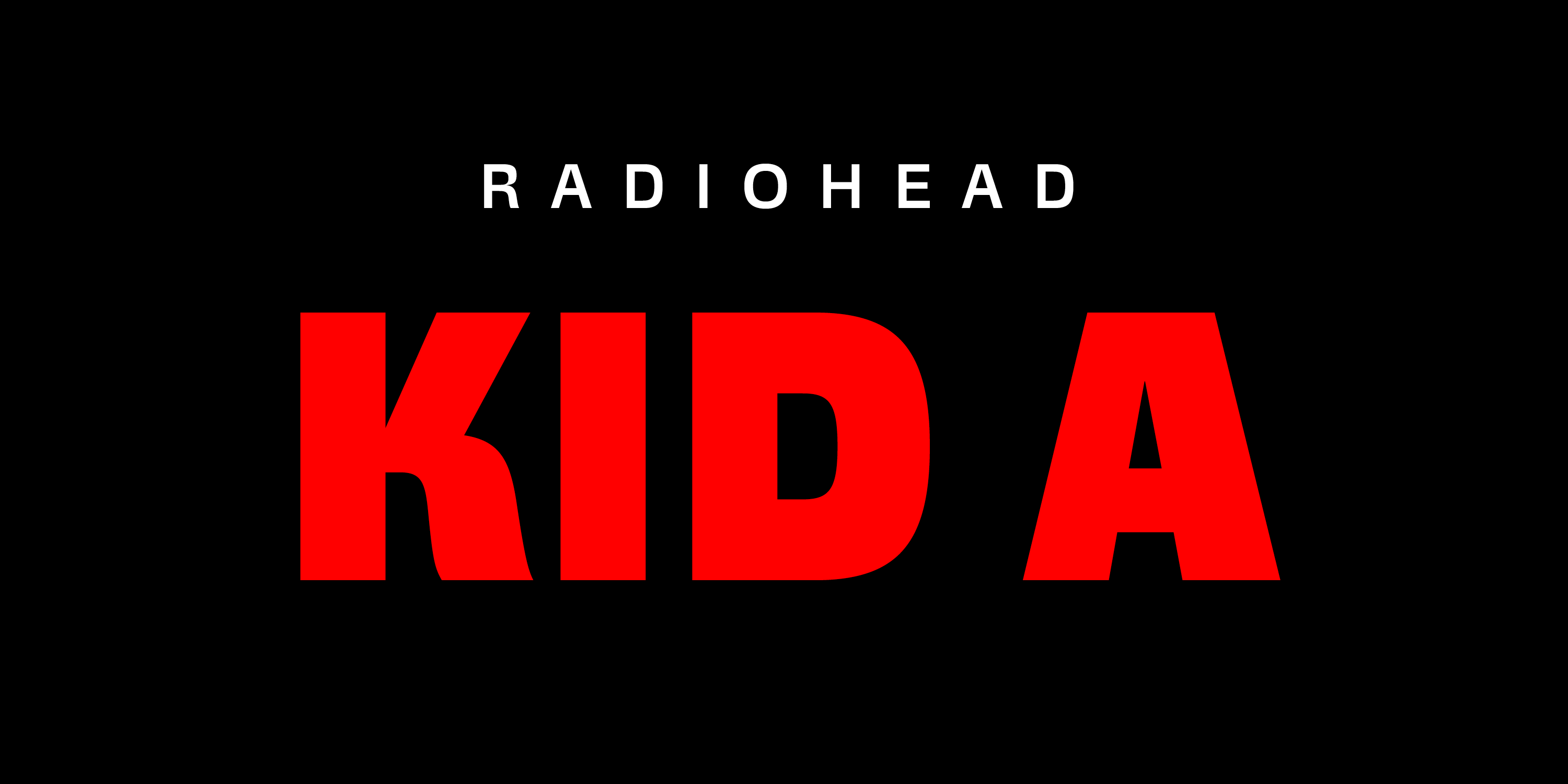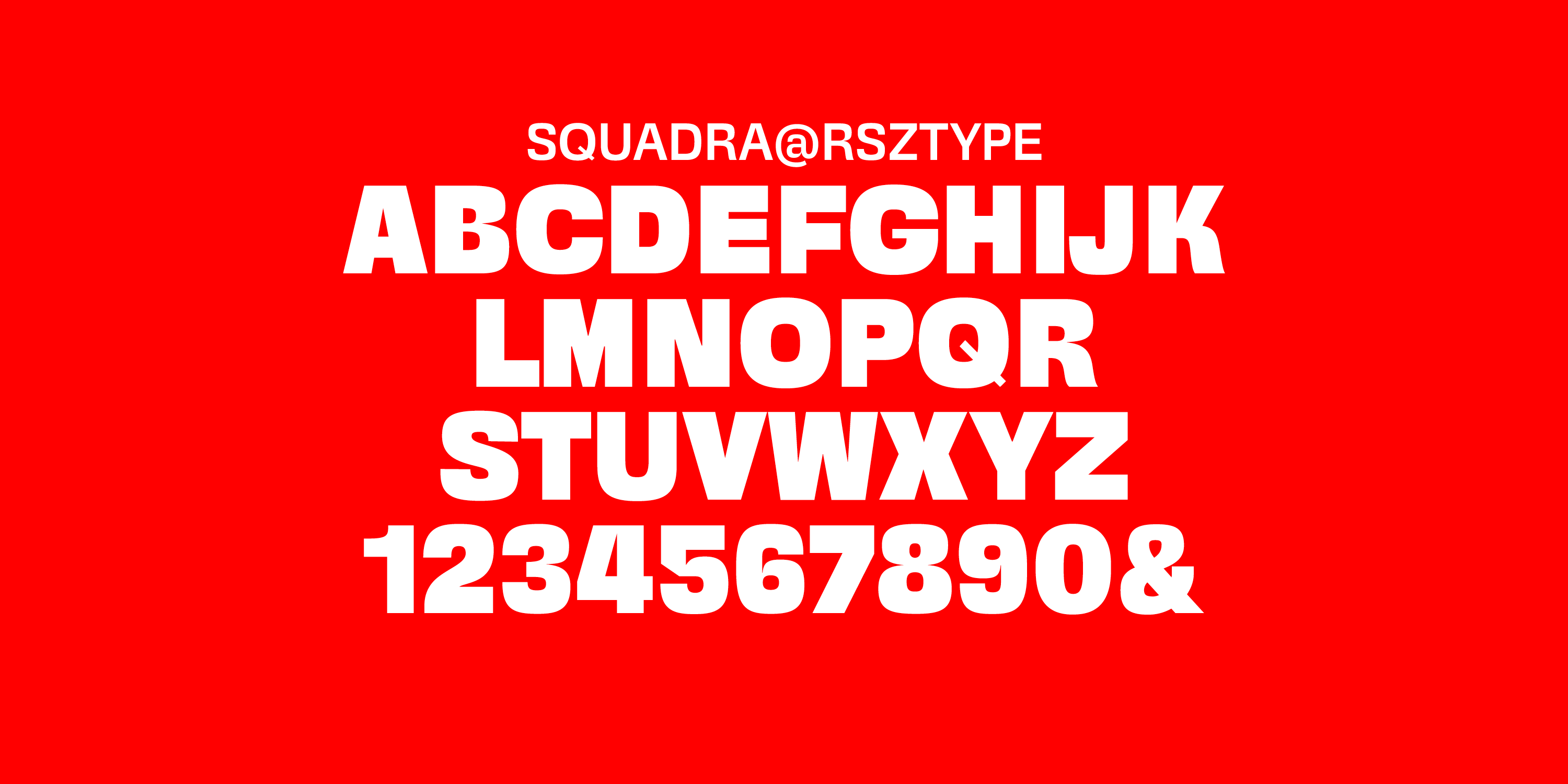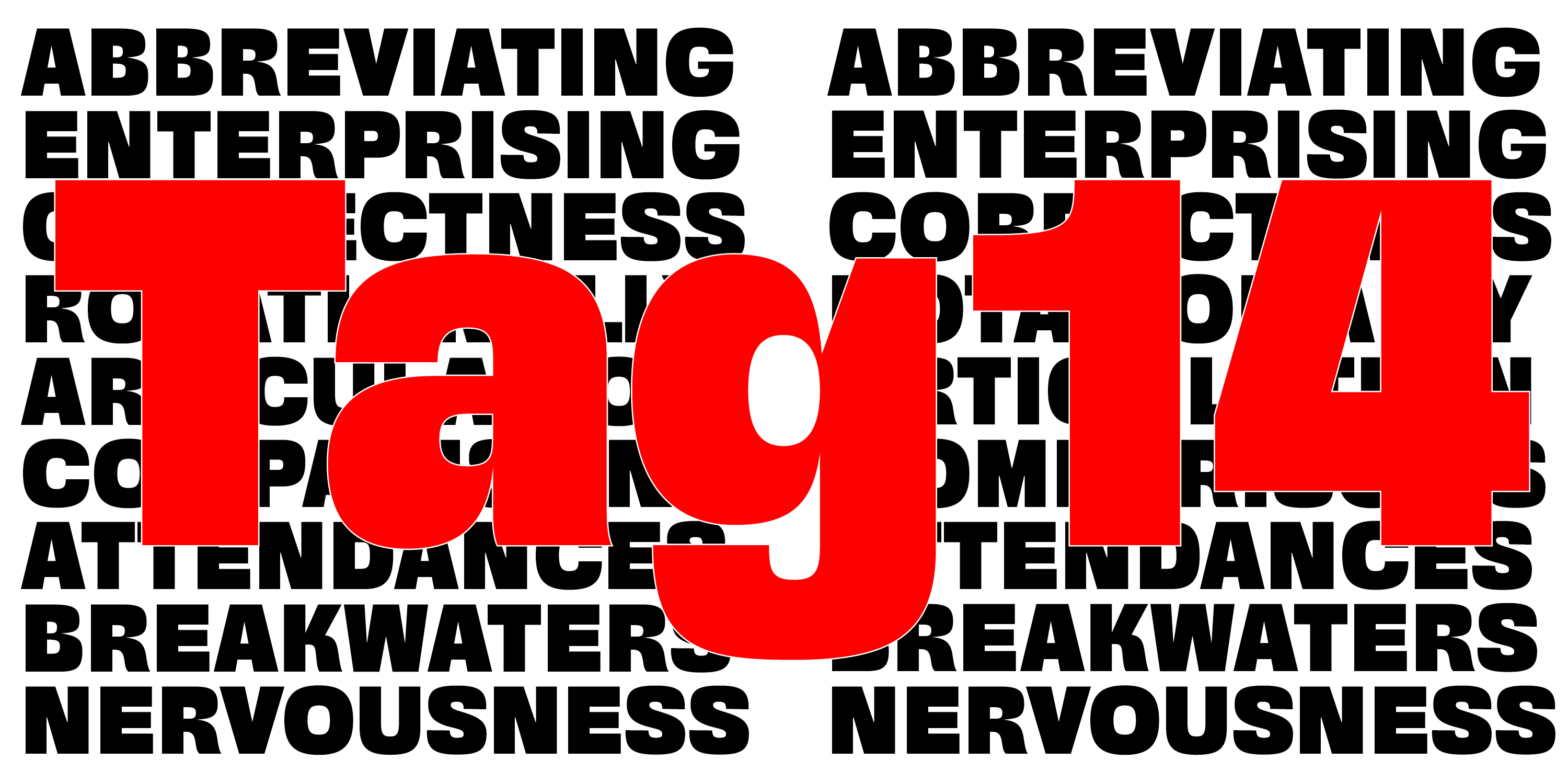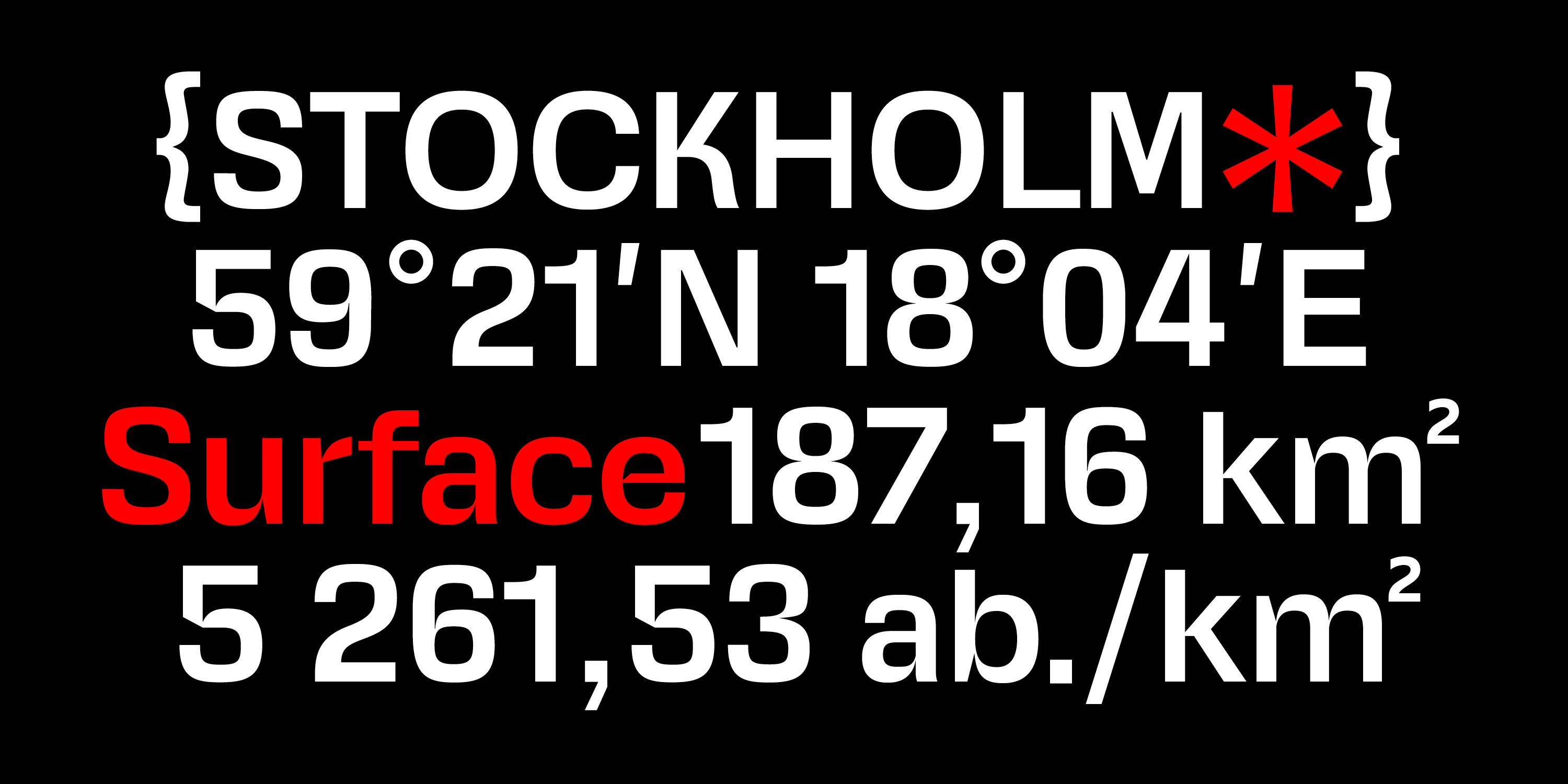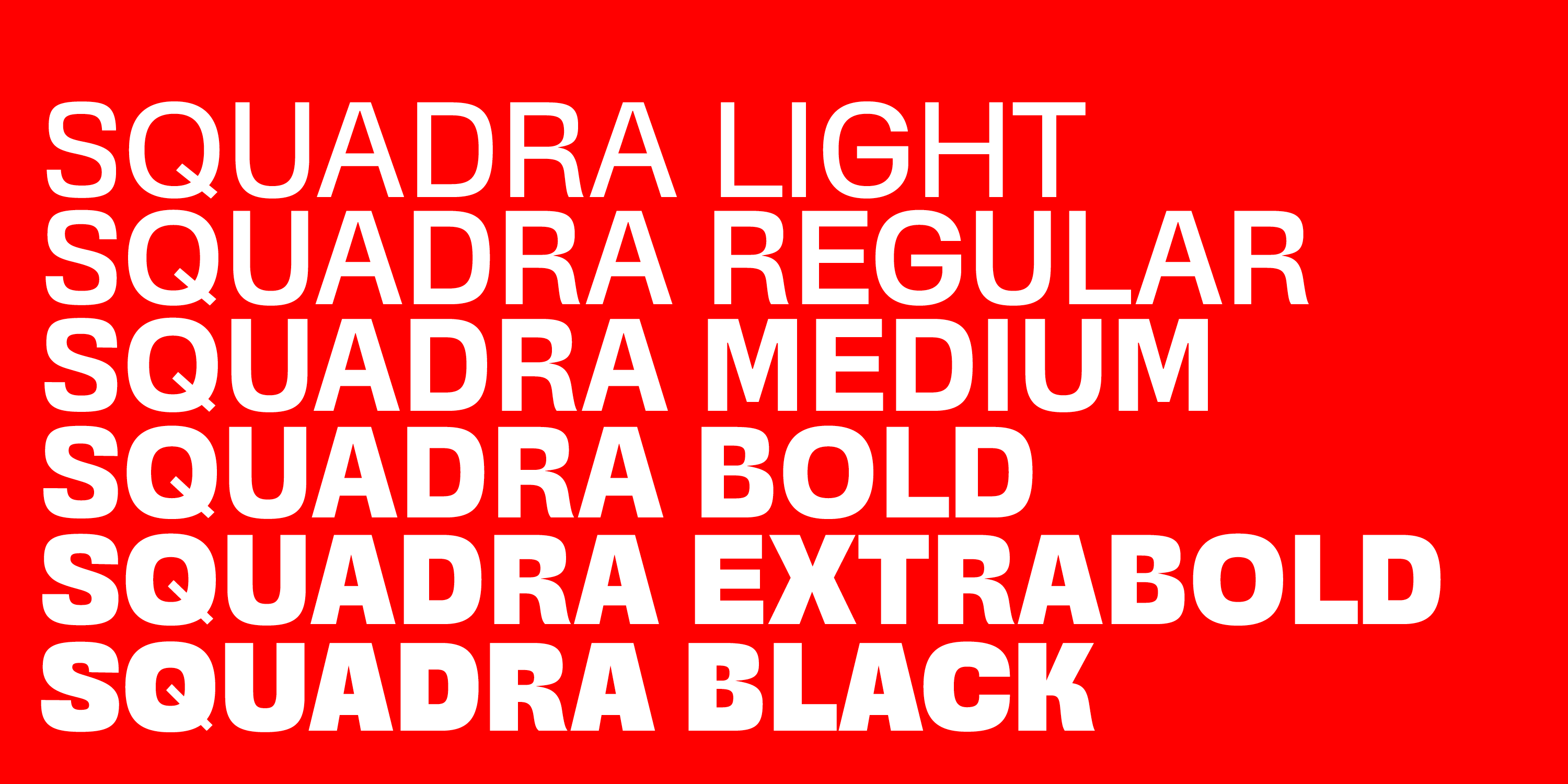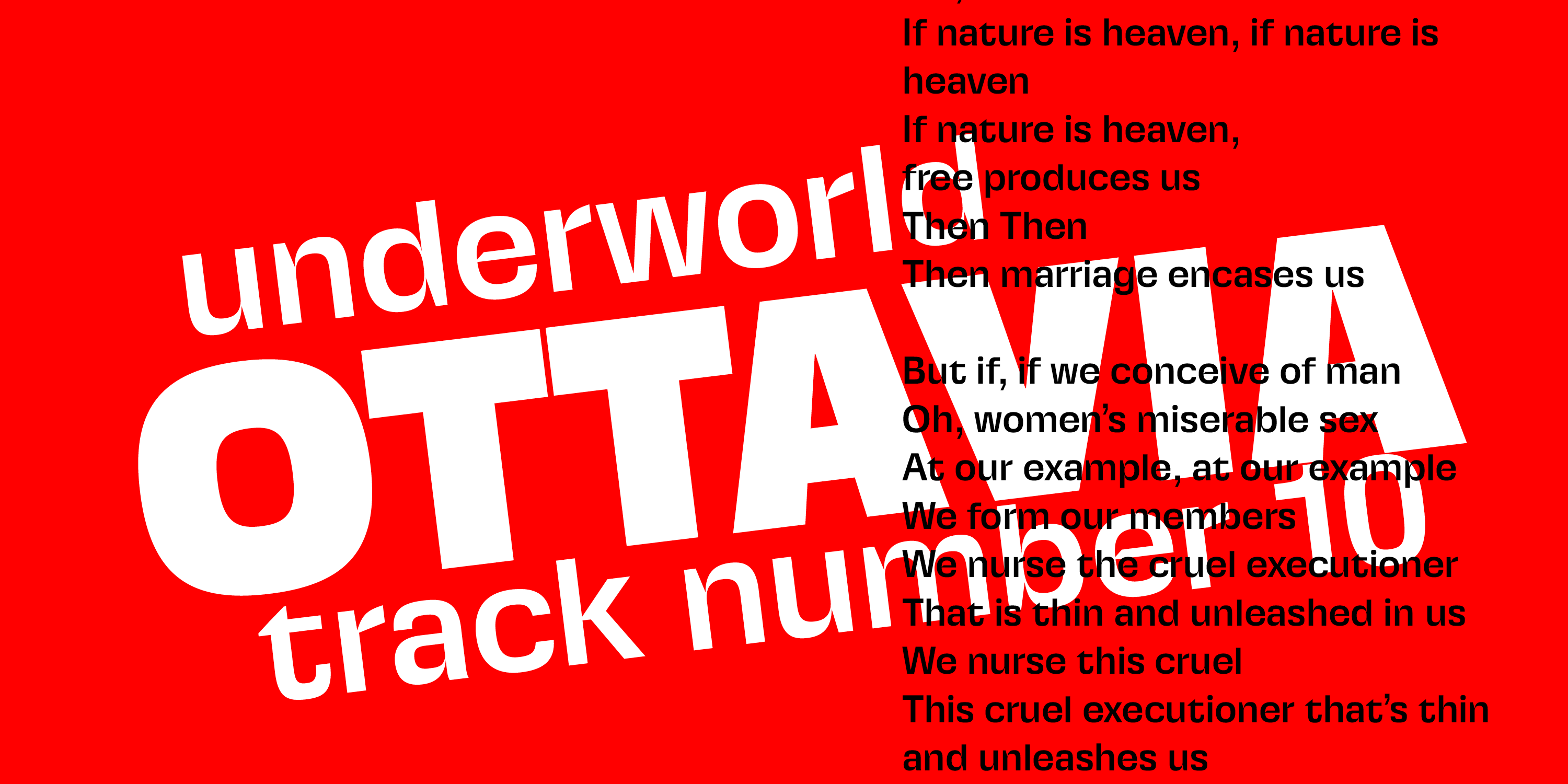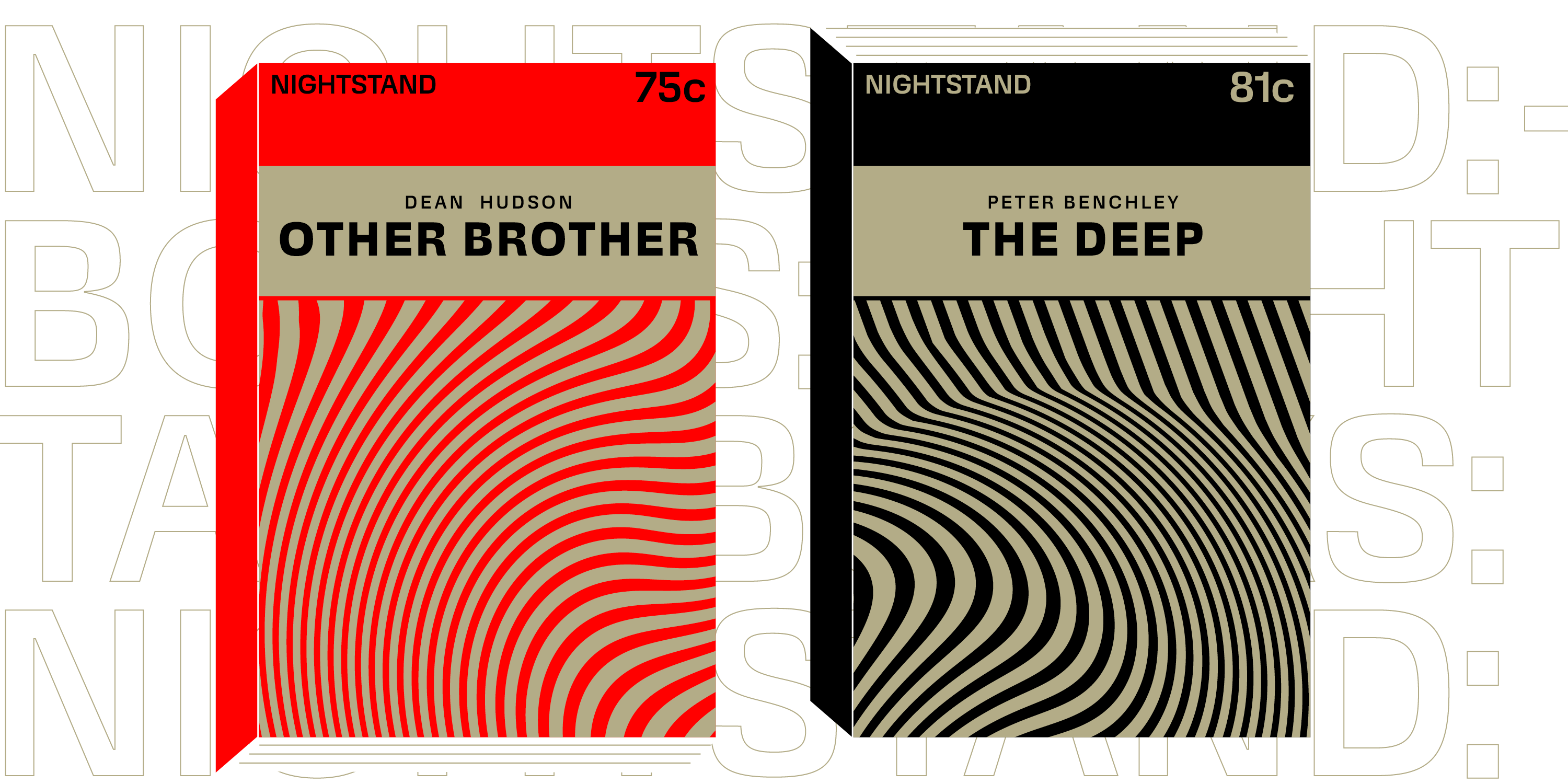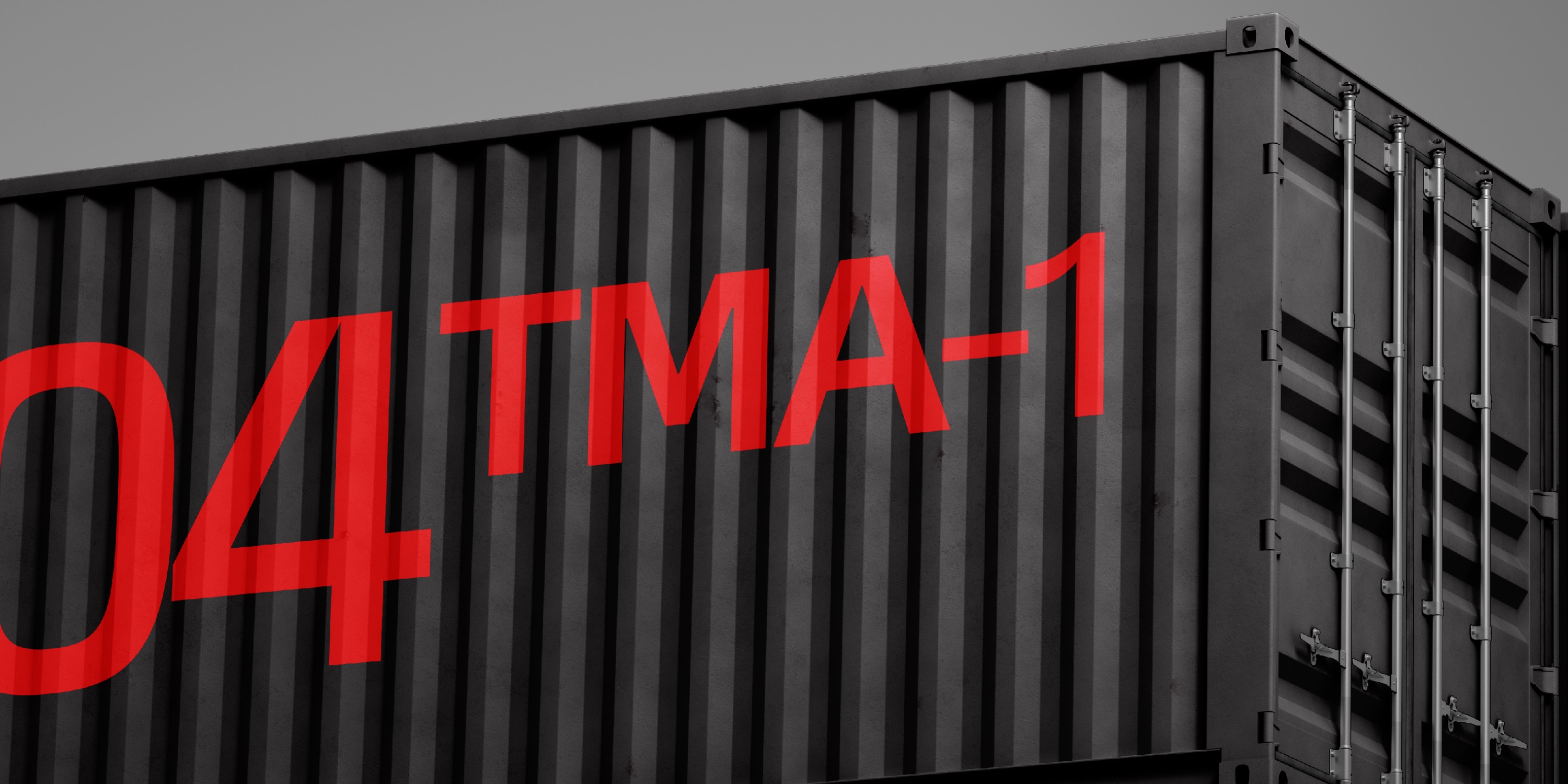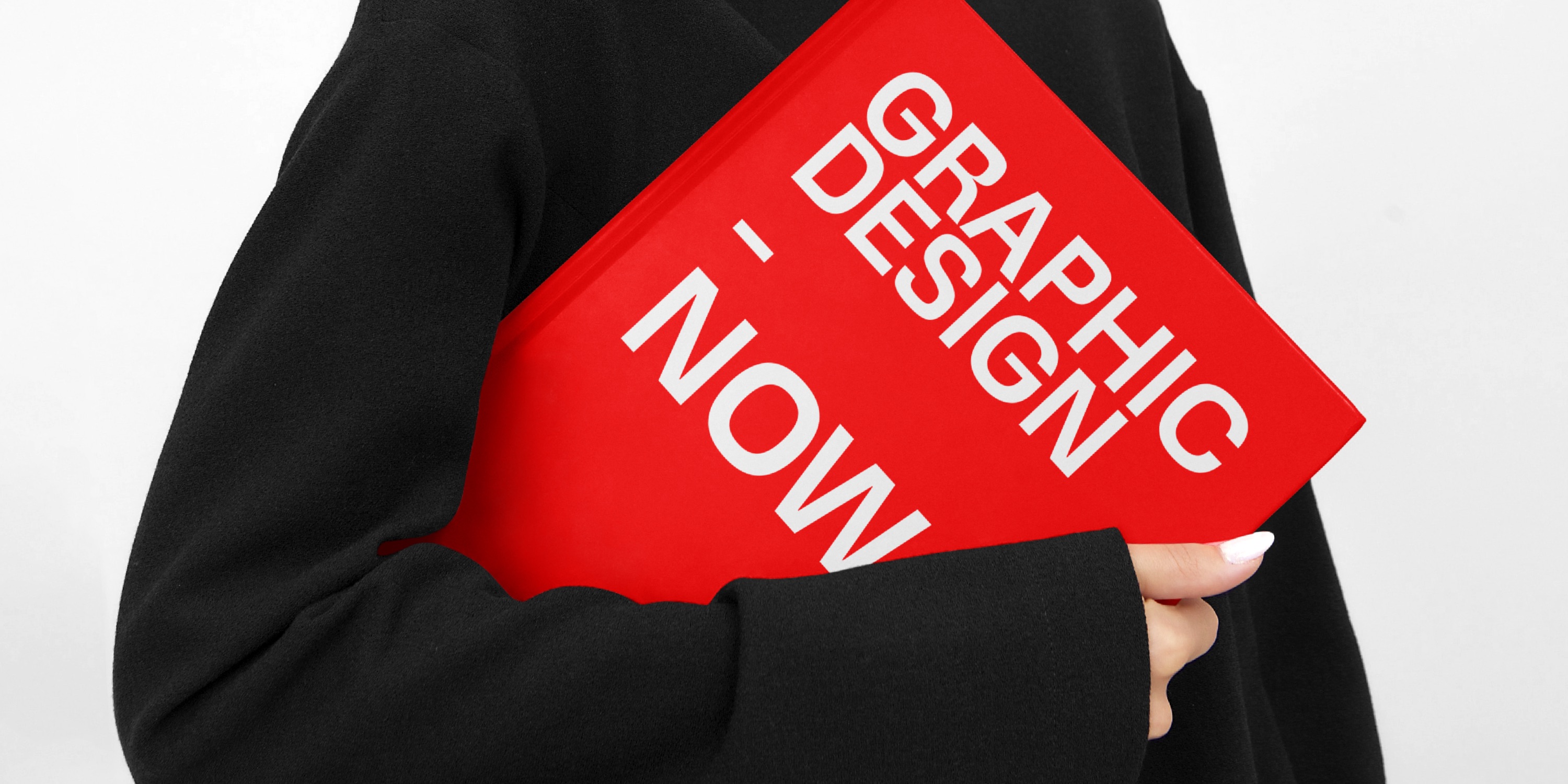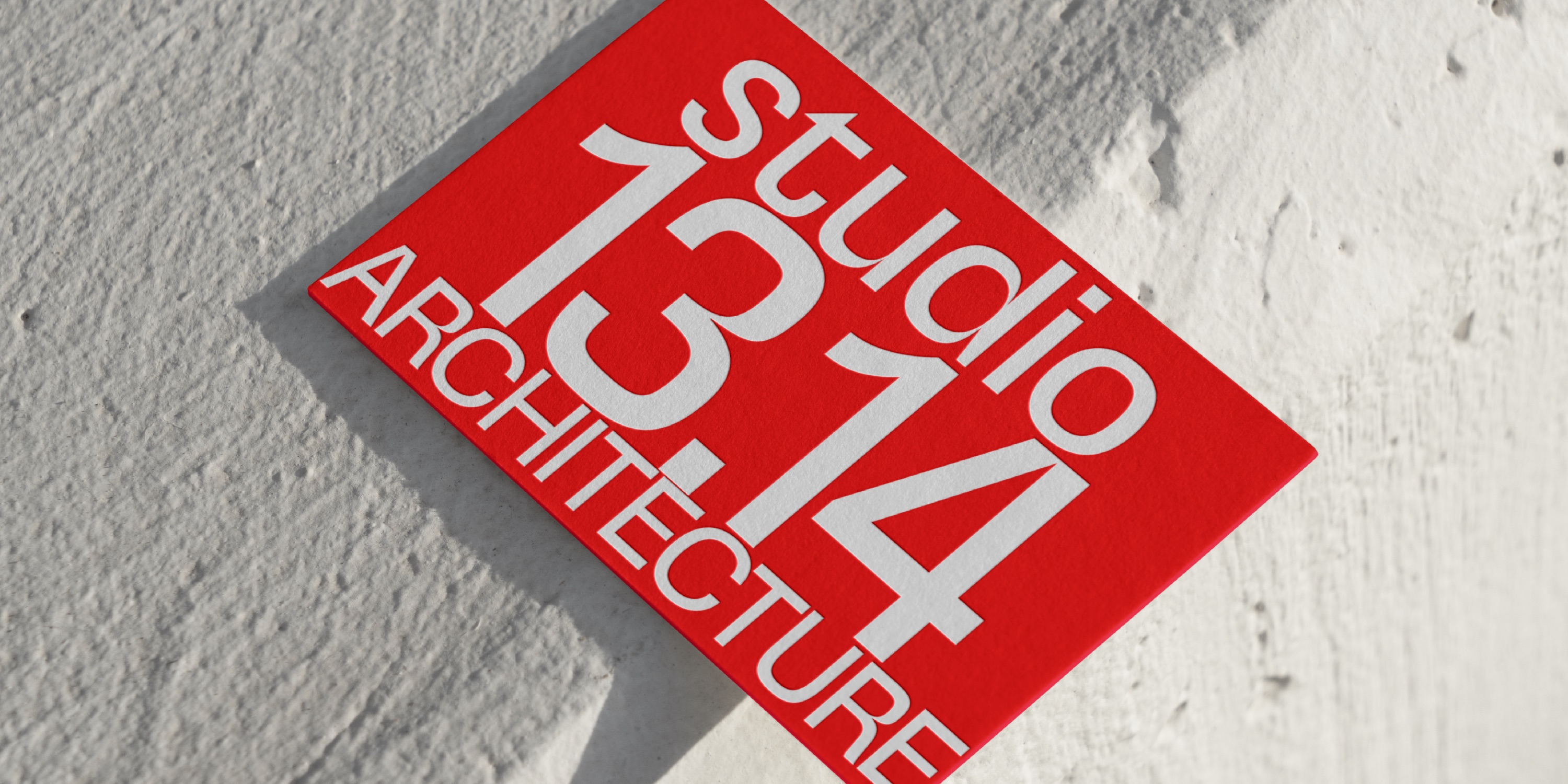
Squadra
Thin ExtraLight Light Regular Medium SemiBold Bold ExtraBold Black Thin Italic ExtraLight Italic Italic Medium Italic SemiBold Italic ExtraBold Italic Black ItalicA squarish, strong and solid, squad!💪
Squadra
Designed by Resistenza Type FoundrySquadra is a contemporary sans-serif family consisting of 18 styles: 9 Regular weights and 9 corresponding Italics. Inspired by the iconic Eurostile by Aldo Novarese and Alessandro Butti, the design reinterprets its geometric elegance and modernist essence with a refined touch suited for today's typographic needs. Each weight, from Thin to Black, showcases clean lines, squared letterforms, and balanced proportions, delivering both versatility and sophistication. The Italics, angled at an expressive yet harmonious slant, retain the geometric DNA while adding a dynamic and fluid character. The typeface excels in display and text settings alike, offering excellent readability and a sleek, technical aesthetic. Perfect for branding, editorial layouts, web interfaces, and signage, it bridges the gap between timeless modernist principles and contemporary design demands. This family is a tribute to mid-century European typography, revitalized for the modern designer.